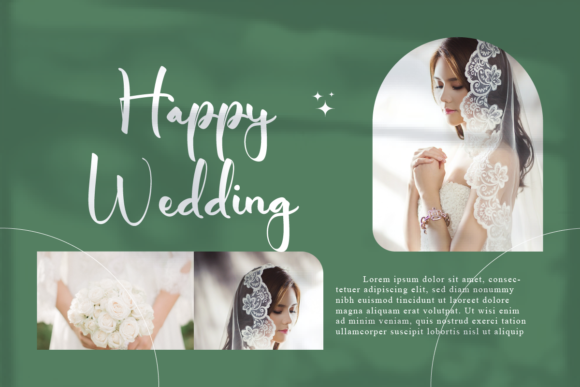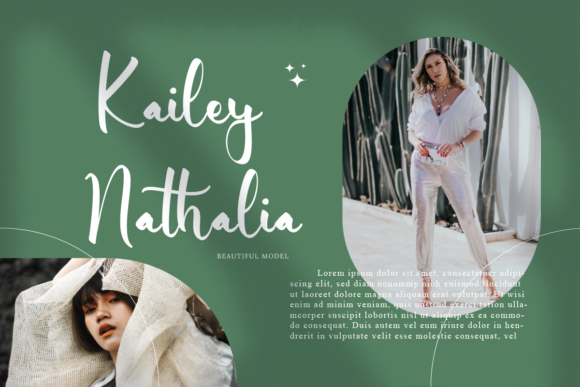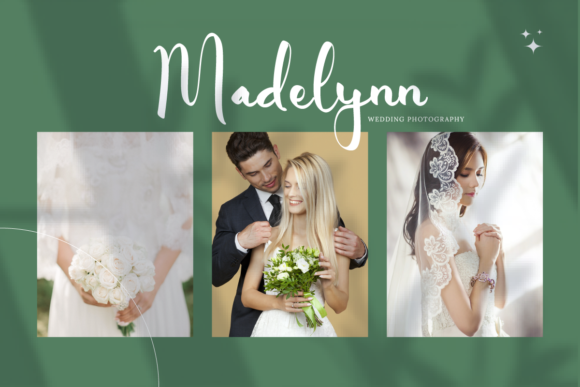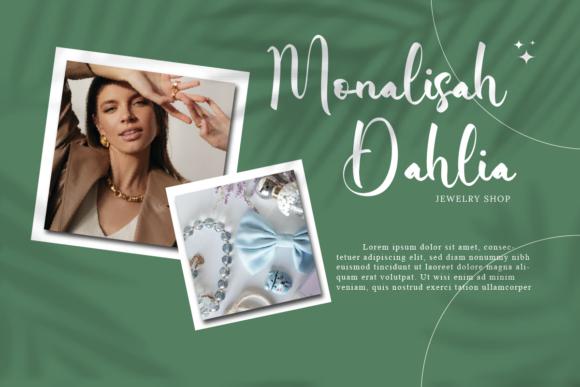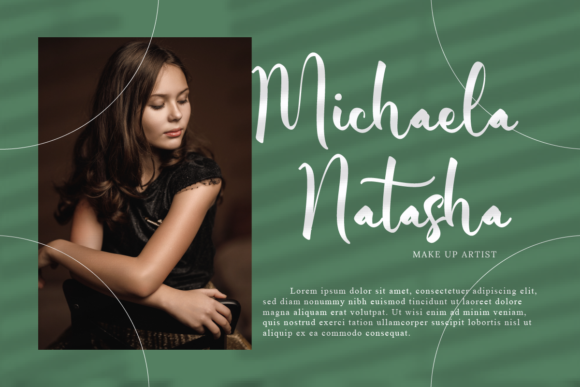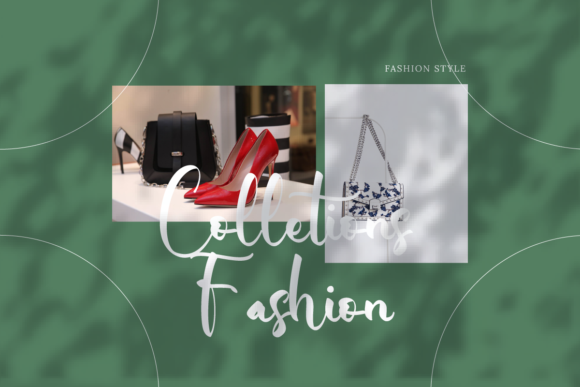
Erika Carleigh Font: Elevate Your Designs with Elegance and Sophistication
In the world of typography, few fonts manage to capture the essence of elegance and style as effectively as the Erika Carleigh font. This stunning script font has taken the design community by storm, offering a perfect blend of sophistication and whimsy that can elevate any project to new heights. Whether you’re a seasoned designer or a crafty DIY enthusiast, Erika Carleigh is sure to become your go-to choice for adding a touch of handwritten charm to your creations.
The Erika Carleigh Advantage: Unparalleled Versatility
One of the standout features of the Erika Carleigh font is its incredible versatility. This beautiful script font can be used in a wide range of applications, from wedding invitations and thank you cards to quotes, greeting cards, logos, and business cards. Its elegant and flowing lines make it perfect for designs that require a personal touch, while its clarity and readability ensure that it remains effective even in smaller sizes.
Wedding and Event Design: Where Erika Carleigh Shines
When it comes to wedding and event design, the Erika Carleigh font truly shines. Its romantic and sophisticated aesthetic makes it an ideal choice for wedding invitations, save-the-date cards, and other stationery. The font’s elegant lines and flowing script evoke a sense of luxury and refinement, setting the tone for a truly unforgettable celebration. Plus, with its wide range of applications, you can use Erika Carleigh to create a cohesive look across all your wedding materials, from invitations to thank you cards.
Beyond Weddings: Erika Carleigh in Everyday Design
While Erika Carleigh is certainly a popular choice for wedding and event design, its uses extend far beyond the world of weddings. This versatile font can be used in a wide range of everyday design projects, from business cards and logos to social media graphics and blog headers. Its elegant and sophisticated aesthetic makes it perfect for adding a touch of personality to your brand or personal projects, while its clarity and readability ensure that it remains effective even in digital formats.
Why Designers and Crafters Love Erika Carleigh
So why have designers and crafters fallen in love with the Erika Carleigh font? For starters, its unique blend of elegance and whimsy makes it a standout choice for designs that require a personal touch. The font’s flowing lines and script aesthetic evoke a sense of handmade charm, making it perfect for projects that require a touch of personality. Plus, with its wide range of applications and versatility, Erika Carleigh is a font that can be used in a wide range of projects, from professional designs to personal crafting projects.
Tips for Using Erika Carleigh in Your Designs
Ready to start using Erika Carleigh in your designs? Here are a few tips to get you started:
- Pair Erika Carleigh with a clean and simple font to create a striking contrast.
- Use Erika Carleigh to add a touch of elegance to your designs, from wedding invitations to business cards.
- Don’t be afraid to get creative and try out new and innovative uses for Erika Carleigh.
Conclusion: Elevate Your Designs with Erika Carleigh
In conclusion, the Erika Carleigh font is a stylish and incredibly elegant script font that can elevate any design to new heights. With its unparalleled versatility, elegant aesthetic, and wide range of applications, Erika Carleigh is a must-have for designers and crafters looking to add a touch of handwritten charm to their creations. Whether you’re working on a wedding invitation, business card, or personal project, Erika Carleigh is sure to become your go-to choice for adding a touch of sophistication and whimsy to your designs.